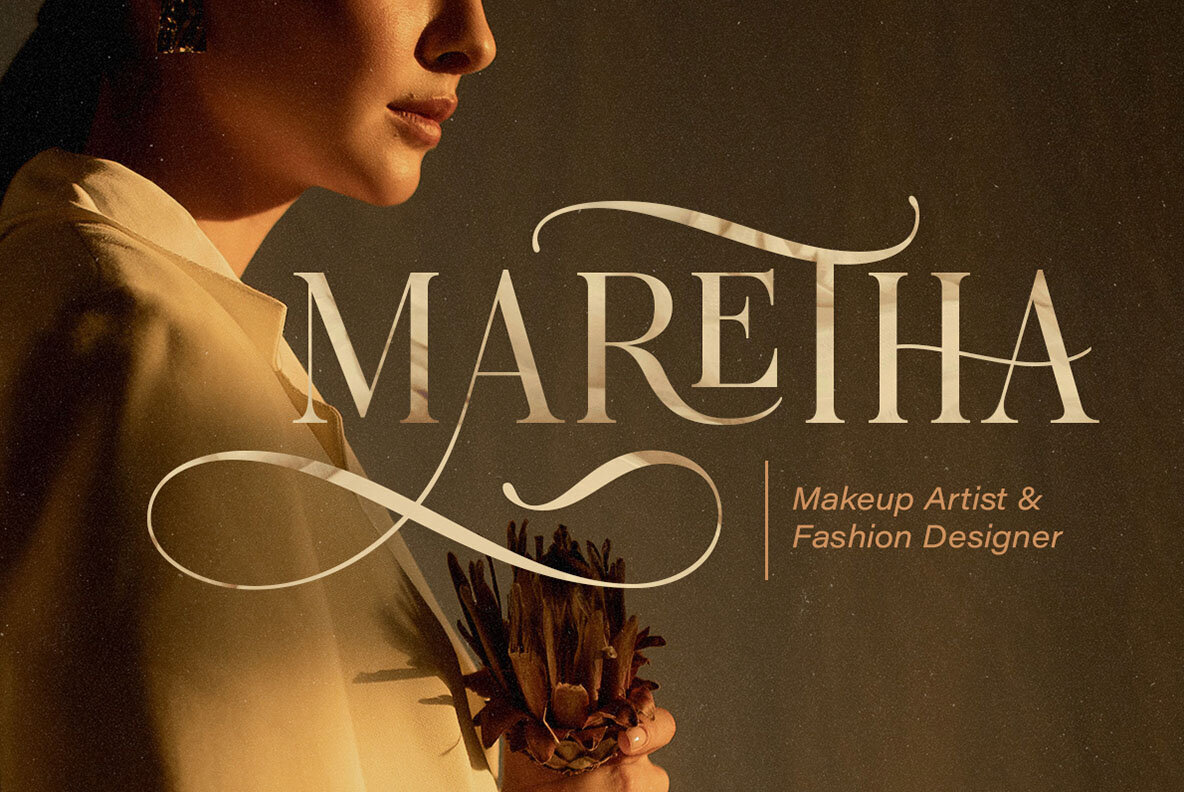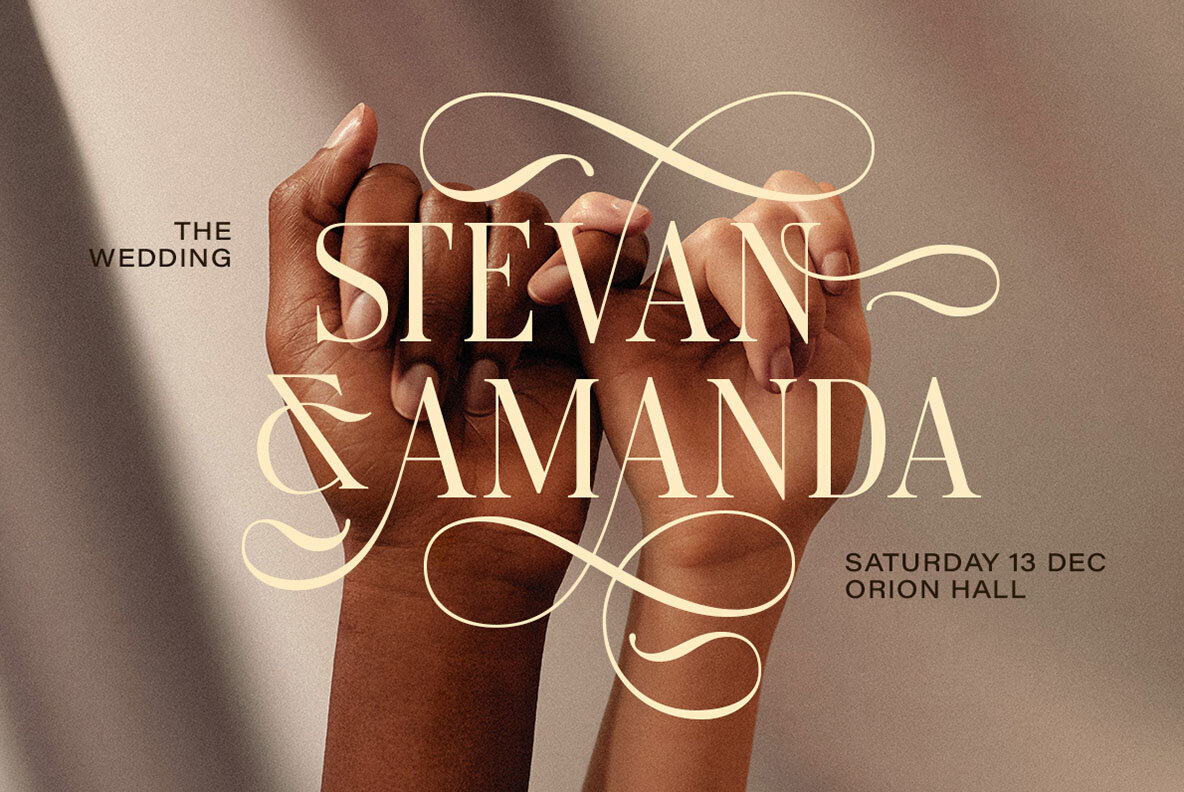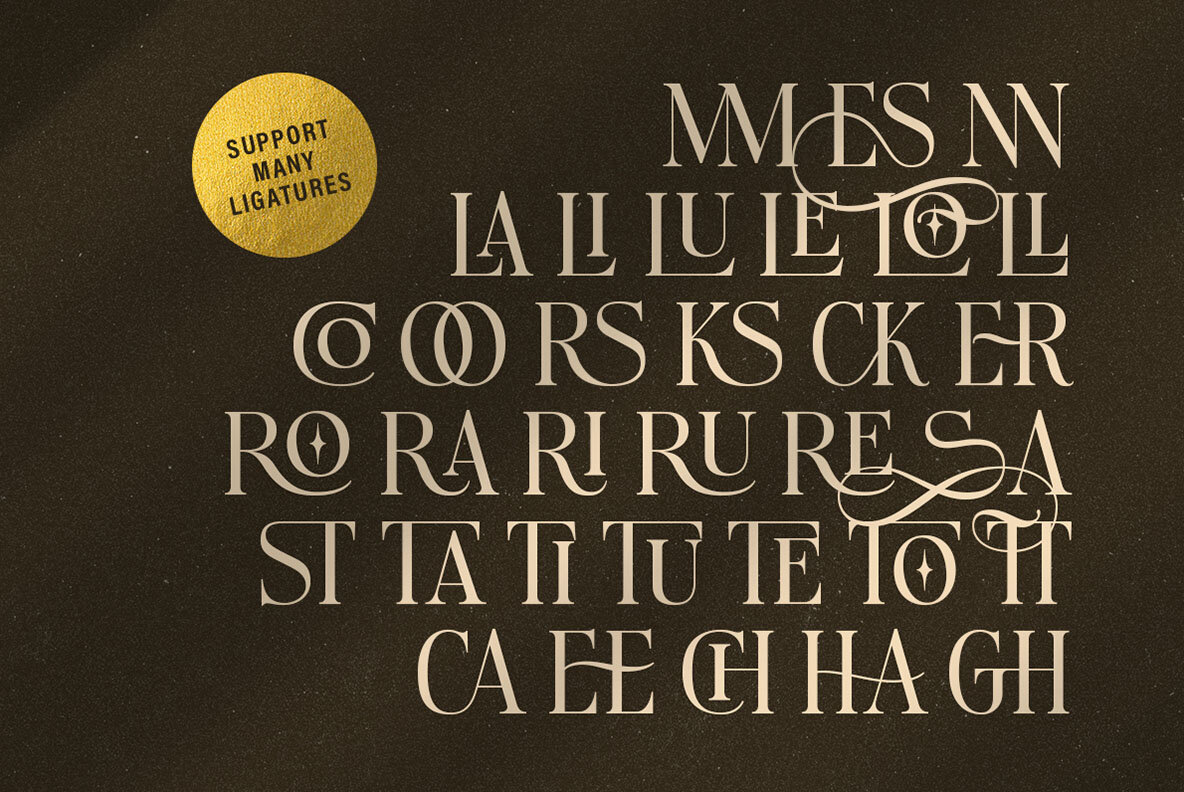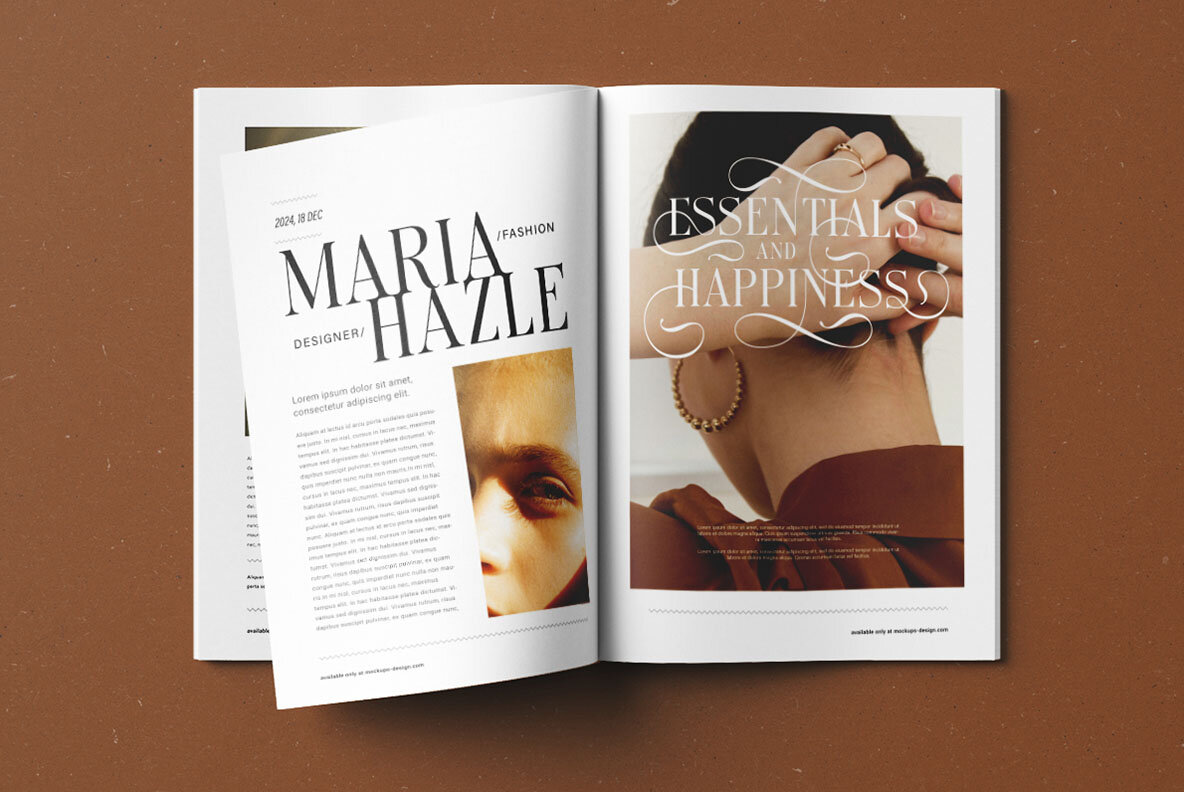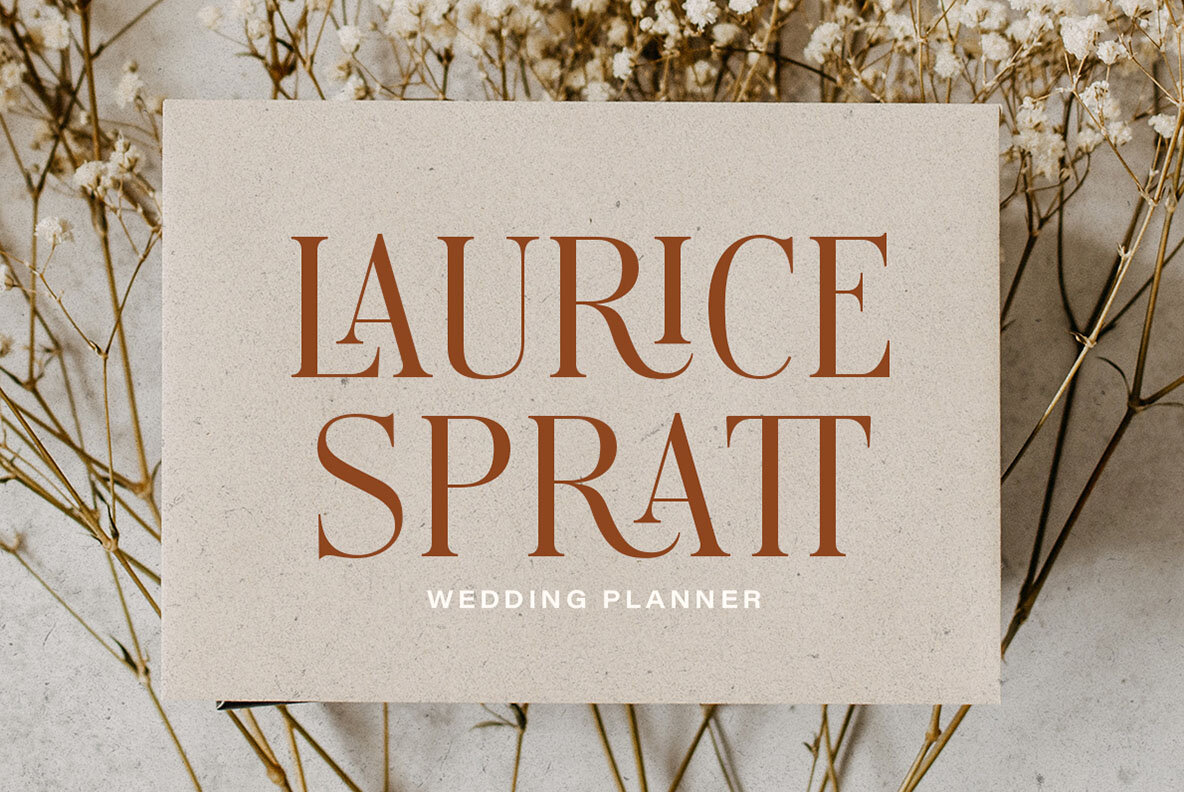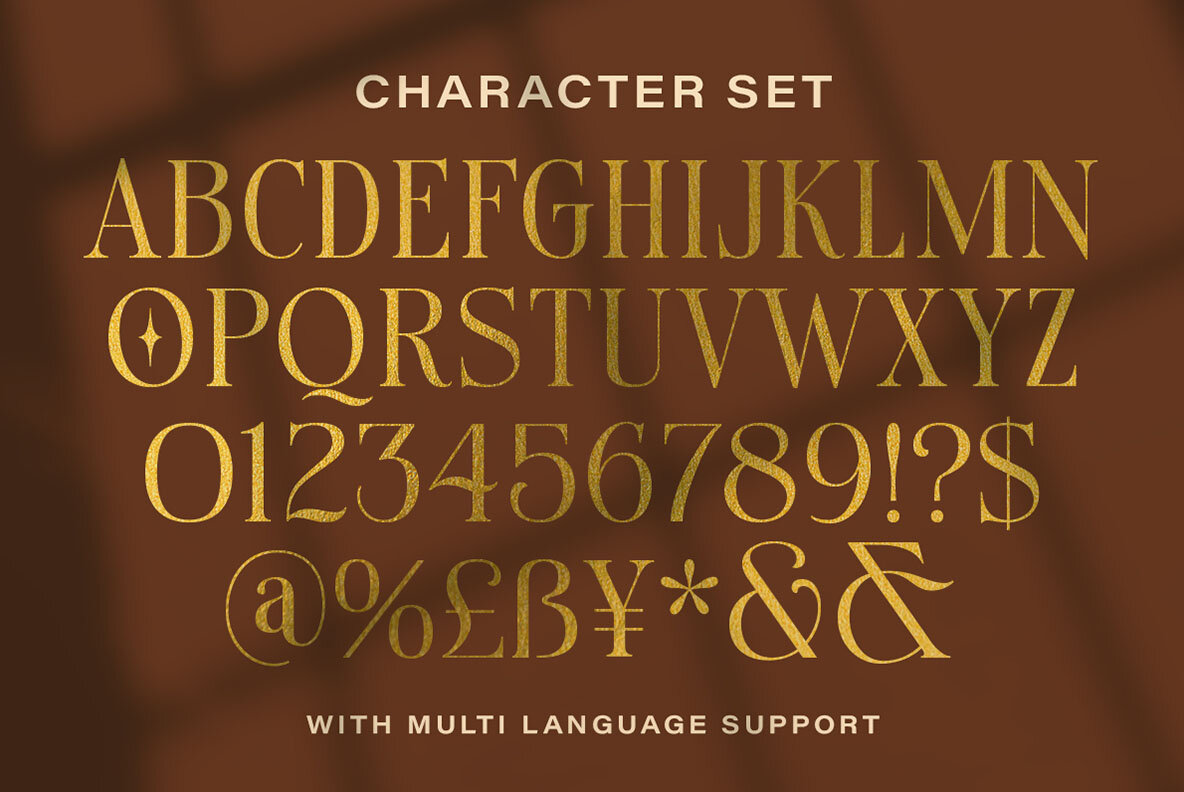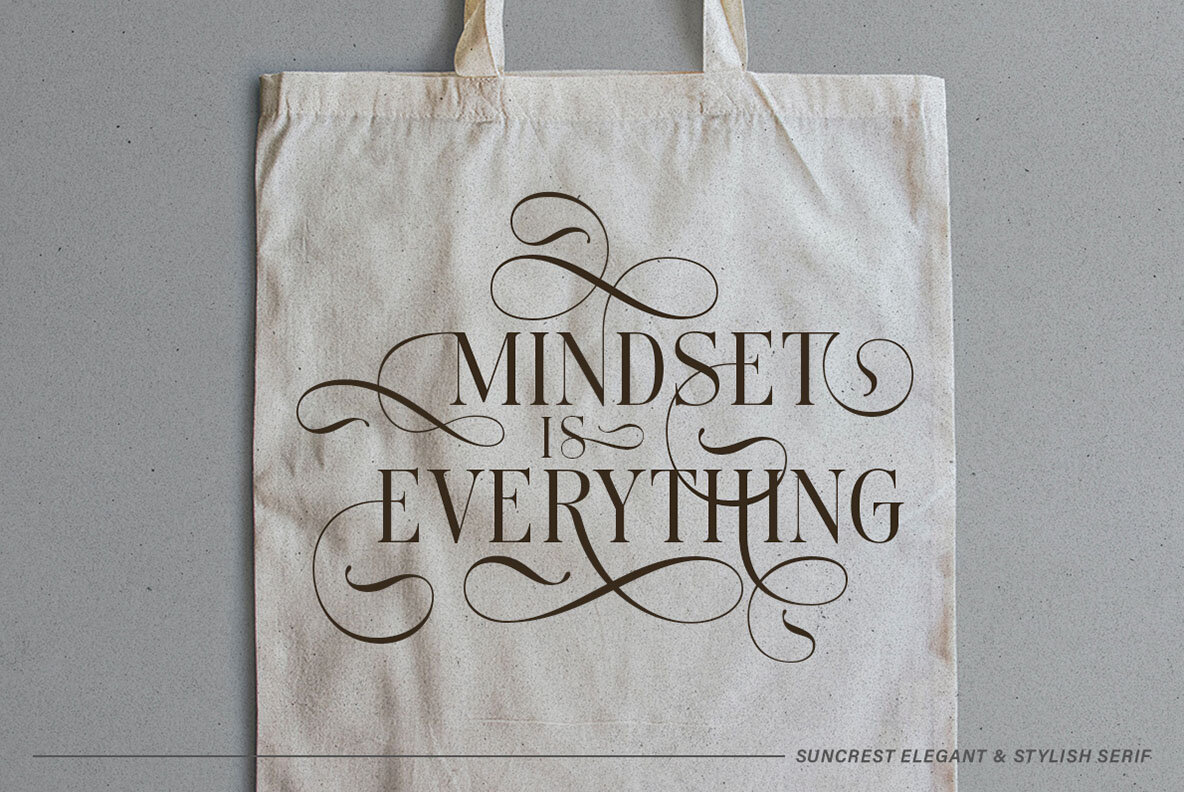
Suncrest Font
Suncrest Regular
Suncrest is a all caps serif font that radiates elegance and stylish. It's stylish alternates and delicate swashes make it the perfect choice for creating designs that demand a refined and chic look. From high-end branding to elegant wedding invitations, this font will captivate with its luxurious appeal. Features: We highly recommend using a program that supports OpenType features and Glyphs panels like many of Adobe apps and Corel Draw, so you can see and access all Glyph variations.